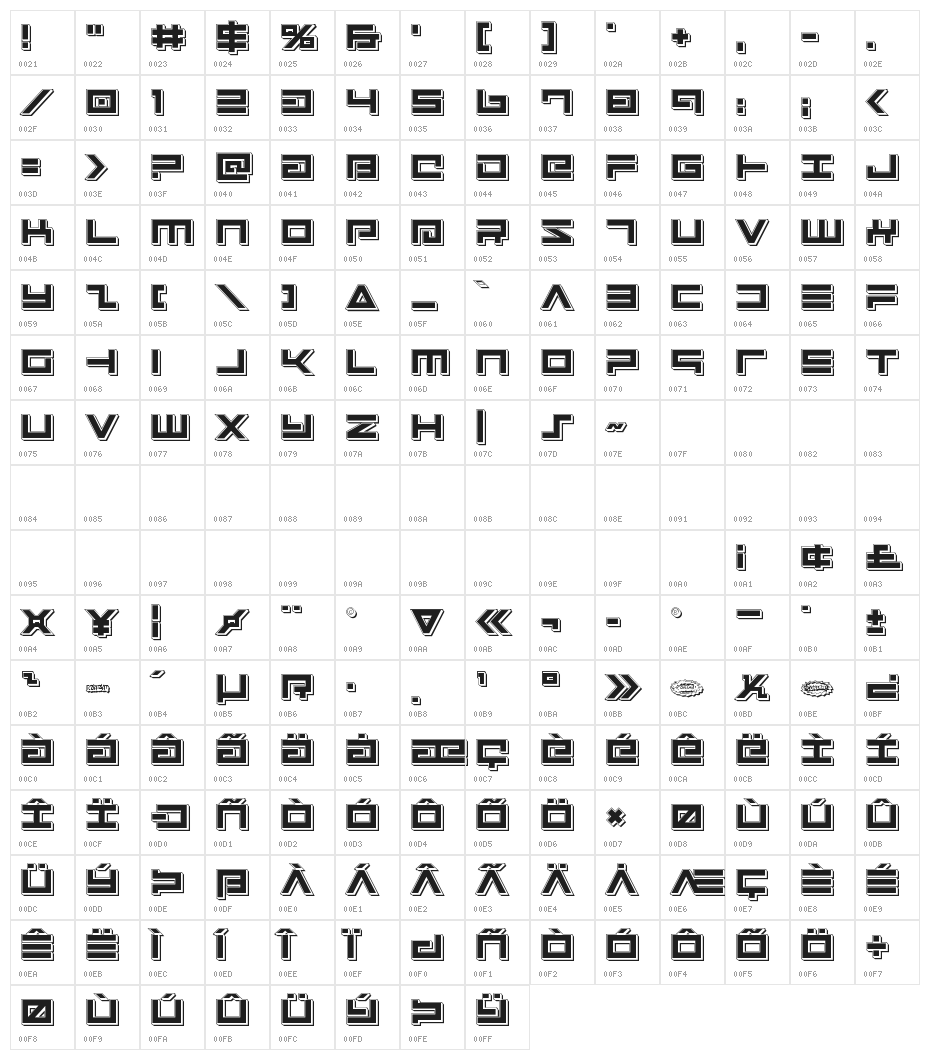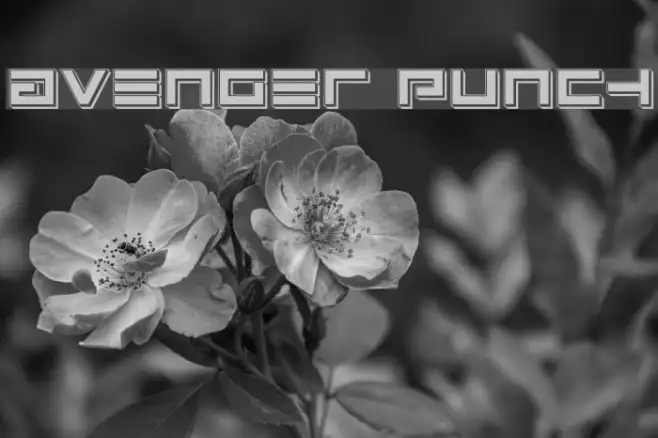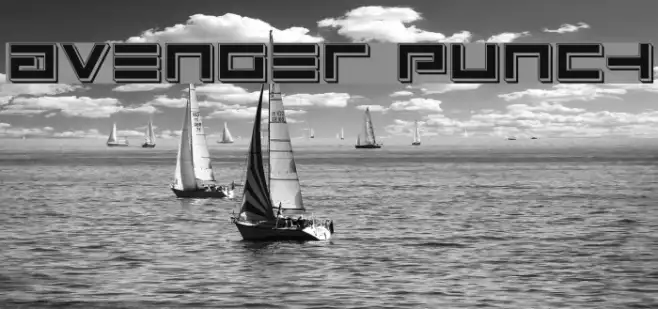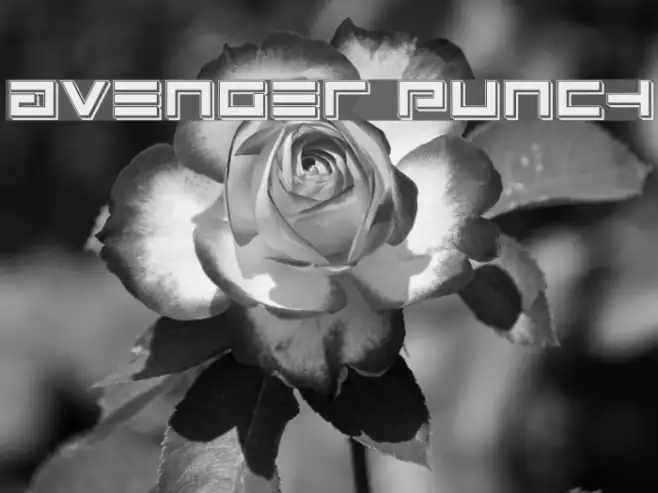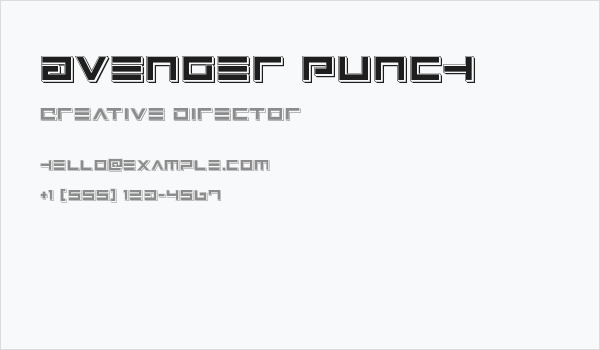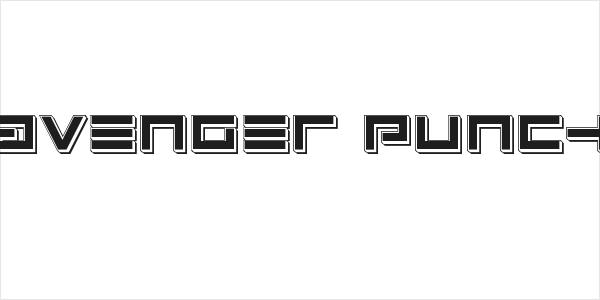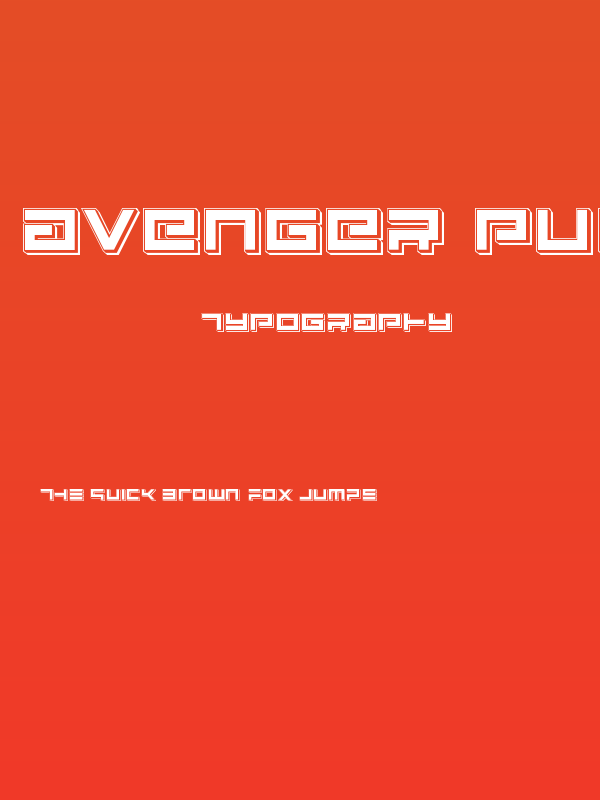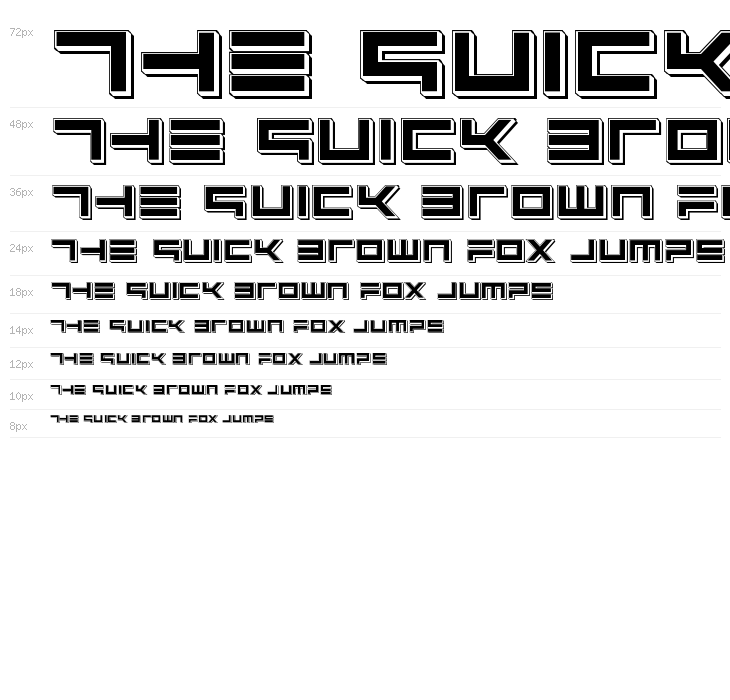
Avenger Punch Font
Avenger Punch Description
This font features a bold, futuristic design with a strong geometric influence. The characters are outlined with a thick border, creating a striking and impactful appearance. The angular shapes and sharp edges give it a modern, tech-inspired look, making it ideal for projects that require a sense of innovation and forward-thinking. The uppercase and lowercase letters maintain a consistent style, with the numbers and special characters complementing the overall aesthetic. The font's unique style is perfect for creating attention-grabbing headlines or logos that need to stand out.
| Proposed Projects | Ideal for sci-fi themed designs, tech company logos, video game titles, and futuristic posters. |